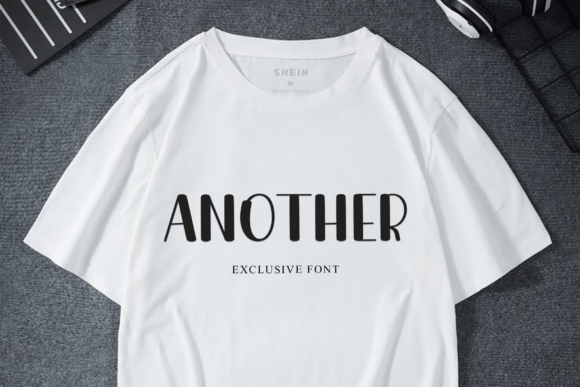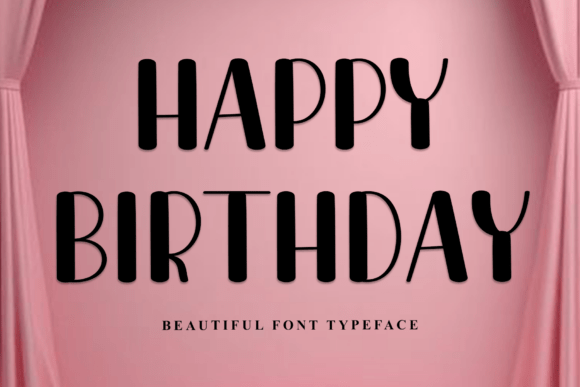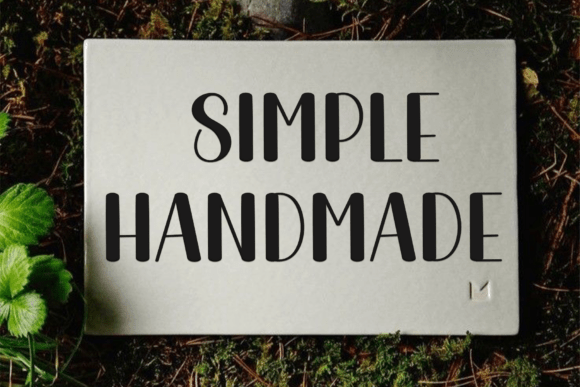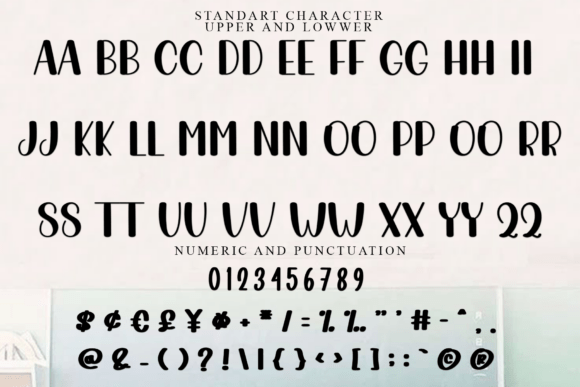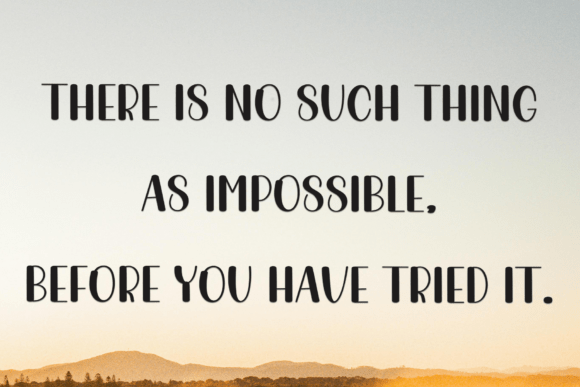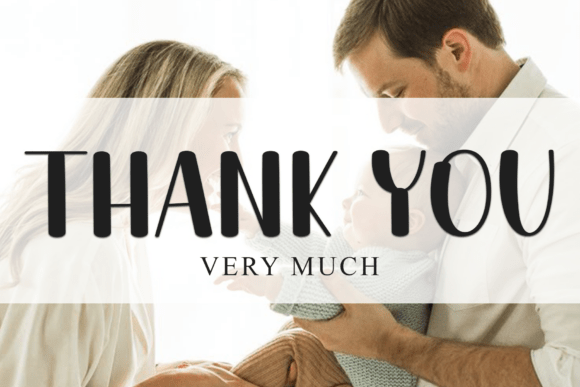
The Perfect Blend of Whimsy and Elegance: Boy Chubby Font
Have you ever found yourself scribbling down a design idea in the middle of the night, only to realize that the right font is the missing piece that brings your concept to life? I know I have. That’s exactly what happened when I stumbled upon the enchanting Boy Chubby Font – a font that has become my go-to companion for all things creative.
Boy Chubby Font is a beautiful and eye-catching font designed with a soft, unique touch. Its distinctive strokes give it a special character, making it meaningful and versatile for future use. Whether you’re a seasoned designer or a crafty enthusiast, this font is perfect for design projects, crafts, and other creative works.
Boy Chubby Font Key Features
- Font Style: Casual, Cartoonish, and Whimsical
- Unique Characteristics: Distinctive rounded shapes and playful letterforms, ideal for children’s products, food packaging, and entertainment branding
Boy Chubby Font Review
Overall, I’d say the Boy Chubby Font is a fun, playful font that can add a lot of character to your design projects ✨. Here’s what I like about it:
- Unique Personality: The font has a distinctive, rounded feel to it that’s perfect for adding a touch of whimsy to your designs ✨.
- Good Legibility: Despite its playful nature, the font is still easy to read and understand, even at smaller sizes ✨.
- Customization Options: The font comes in a range of weights and styles, giving you plenty of flexibility to customize it to suit your needs ✨.
However, there are a few limitations to keep in mind ⚠️:
- Not Suitable for Formal Projects: The font’s playful nature makes it better suited for informal projects, such as social media graphics or children’s book illustrations ⚠️.
Overall, I’d recommend the Boy Chubby Font for projects that need a fun, lighthearted touch ✨. Just be aware of its limitations and make sure it’s the right fit for your design needs.
Tips for Getting the Most Out of Boy Chubby Font
Use Boy Chubby Font to add a playful touch to designs, especially for children’s products or family-friendly brands. Experiment with different font sizes and colors to create a unique look. Consider pairing the font with bold or italic styles for added emphasis.
Boy Chubby Font is ideal for:
– Children’s products and packaging
– Family-friendly brands and logos
– Social media posts and graphics
– Illustrations and graphics for kids’ books or magazines